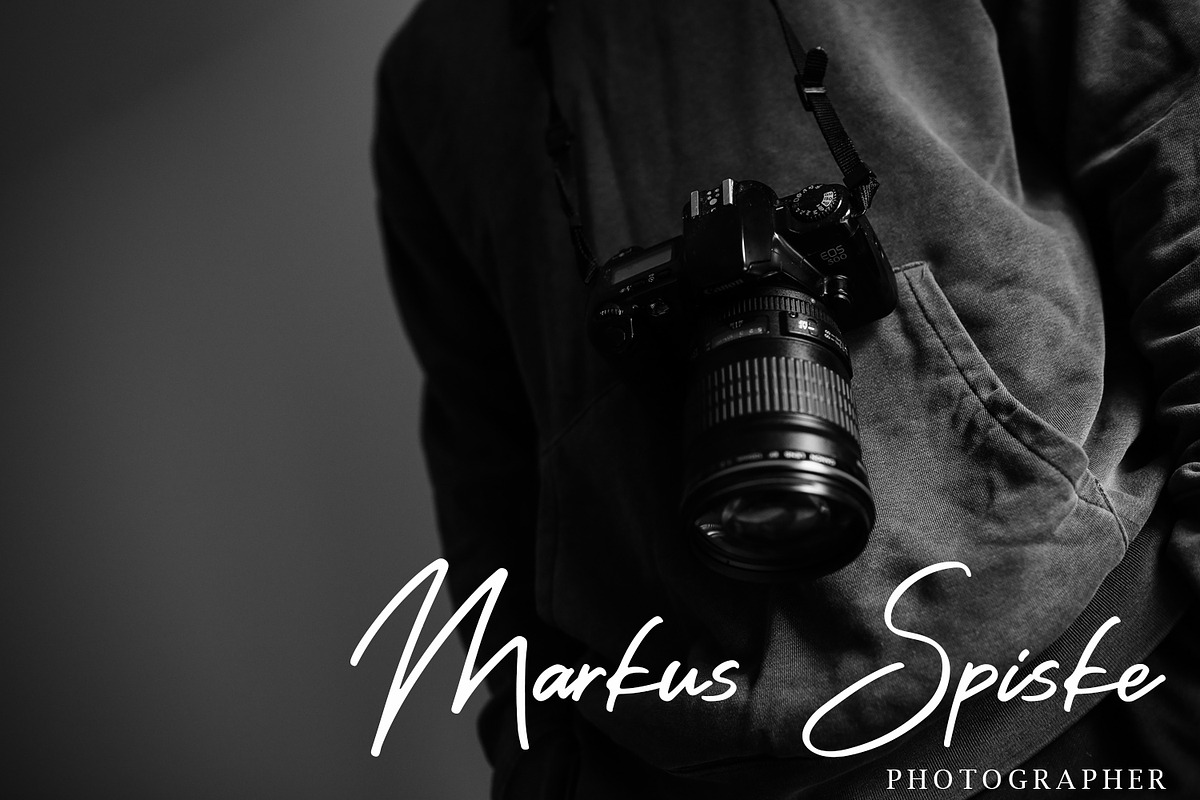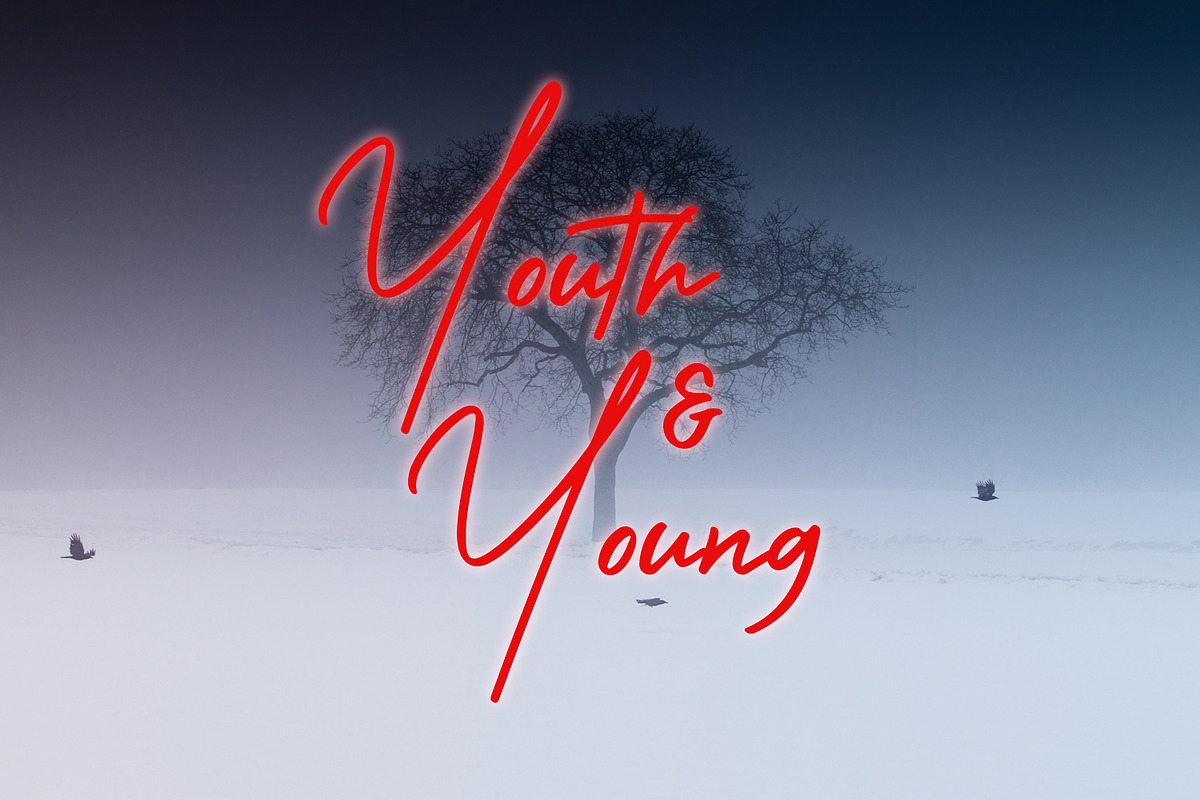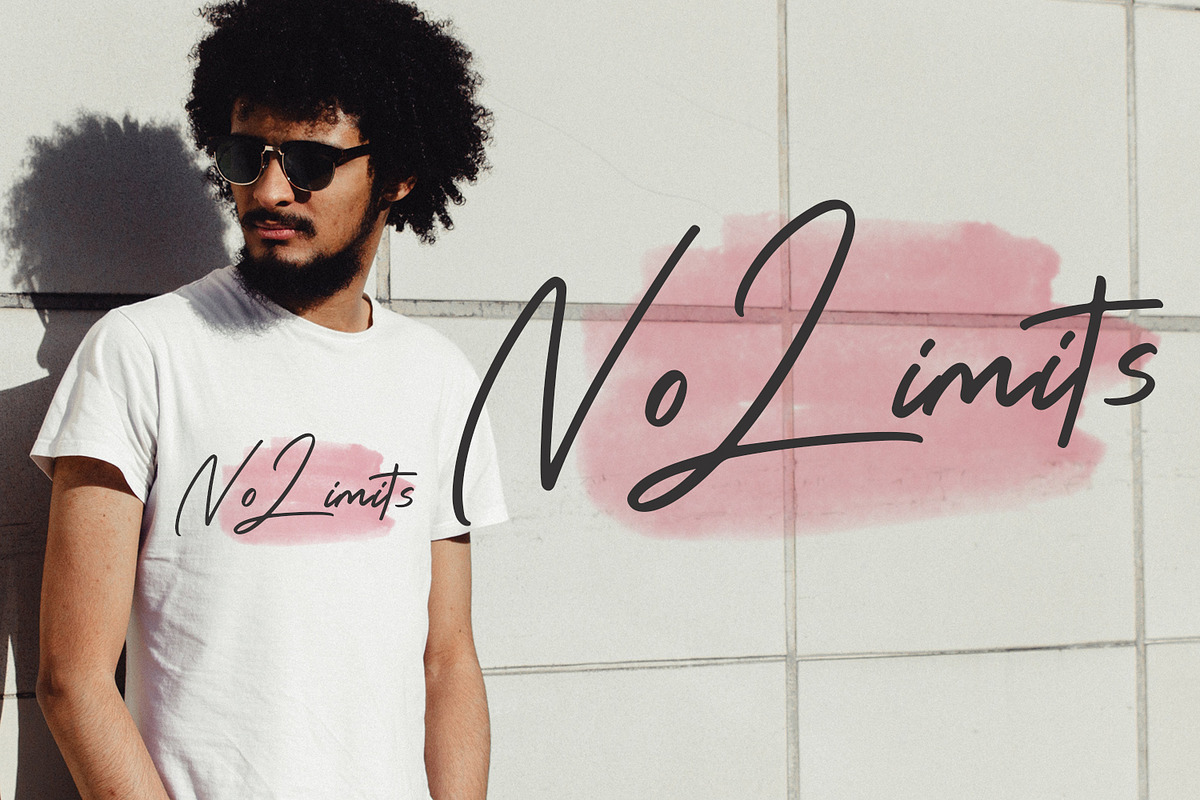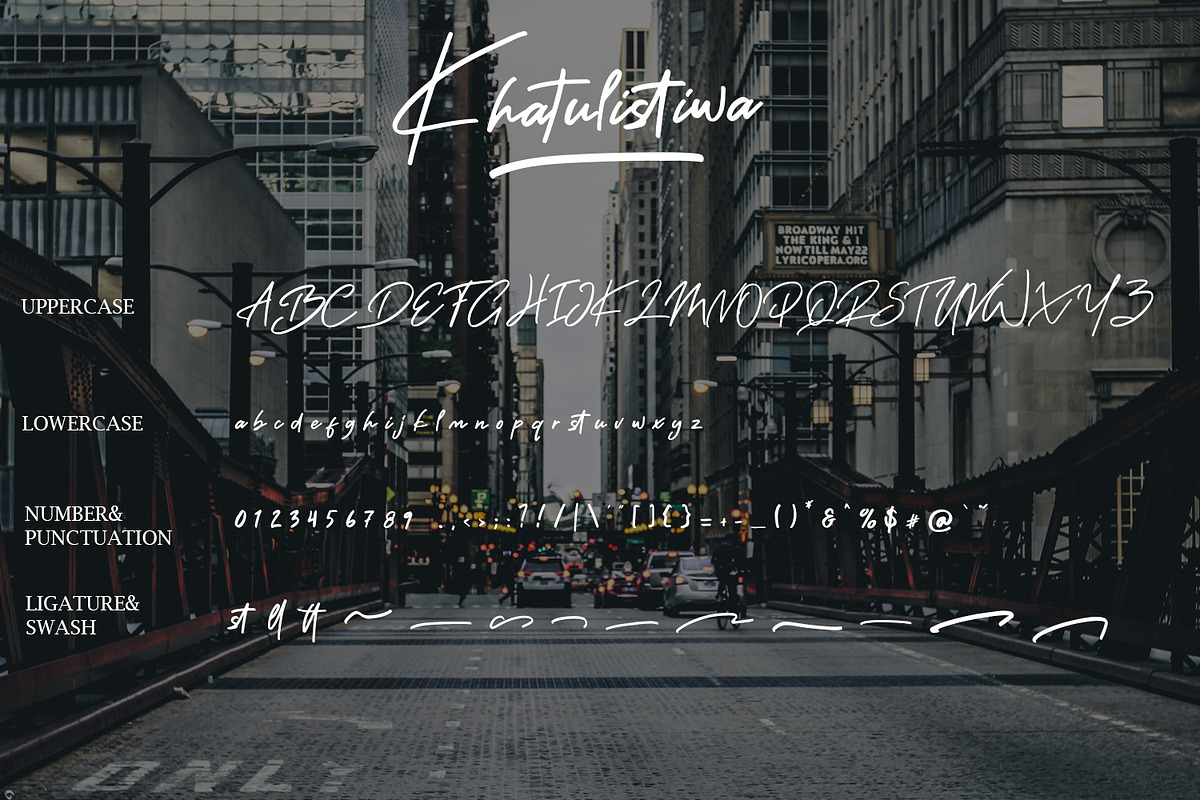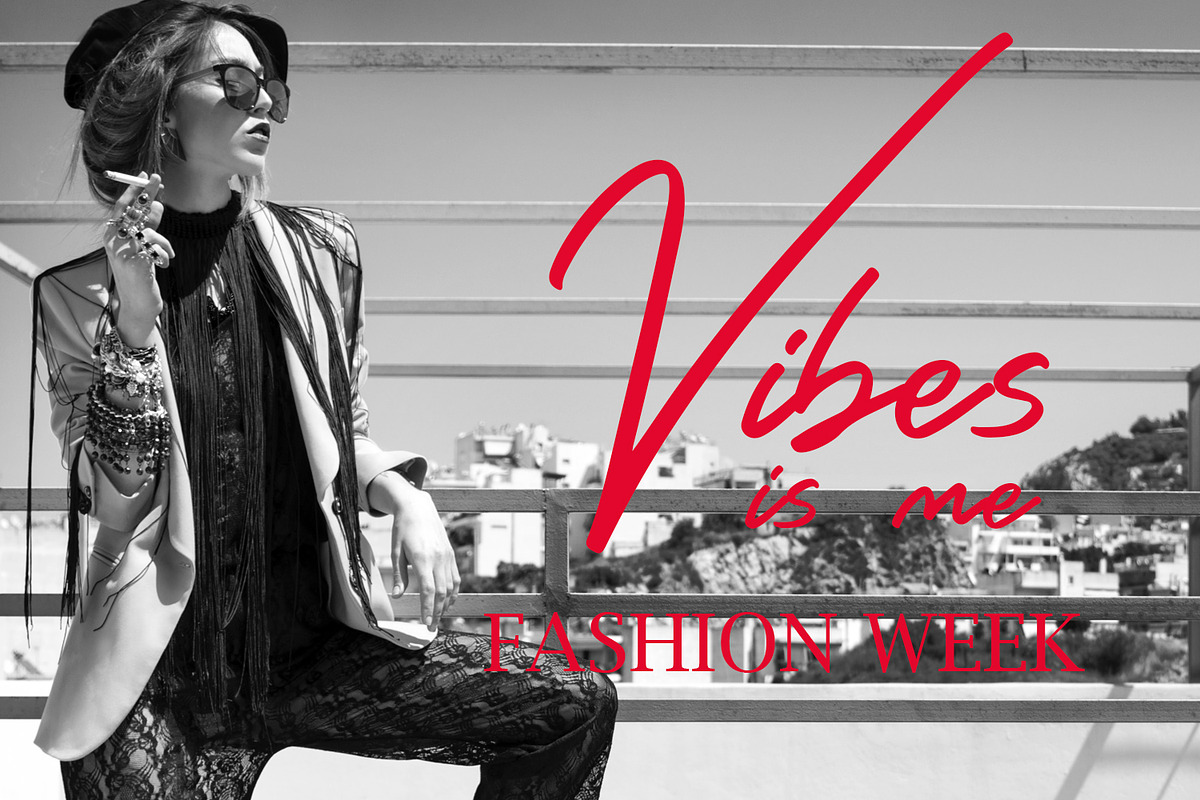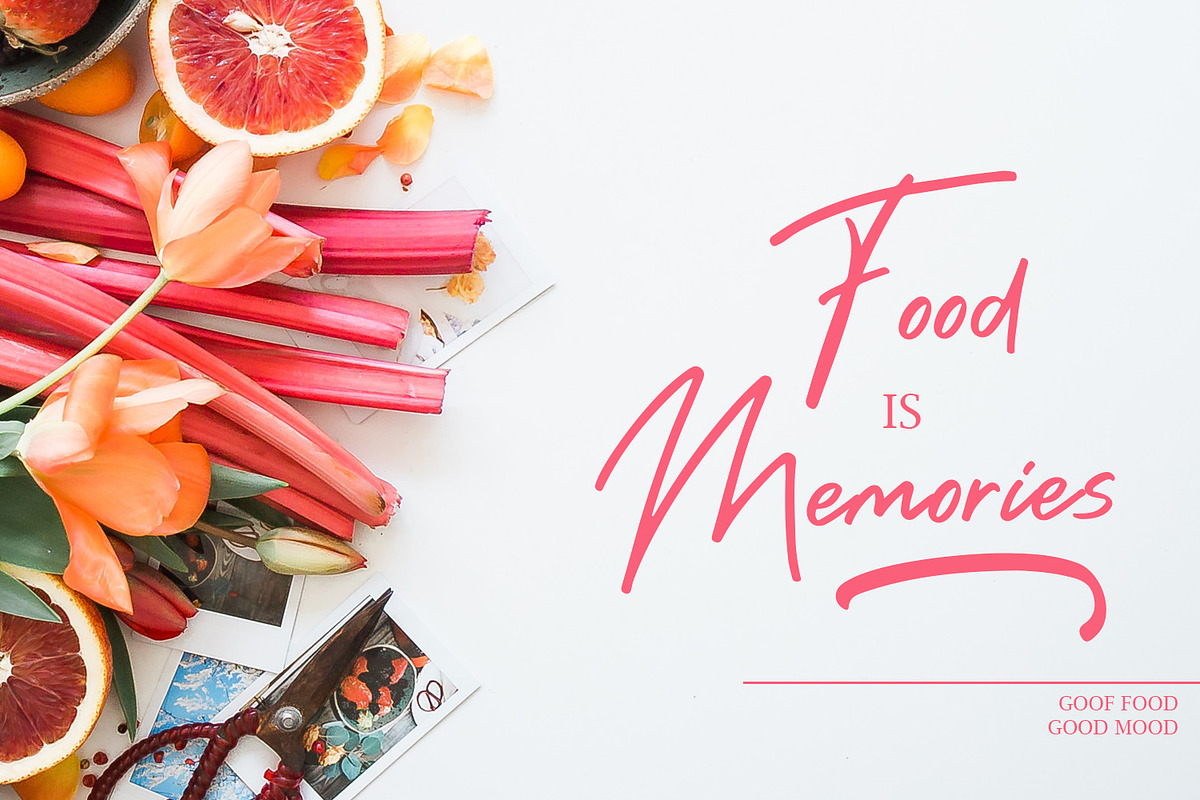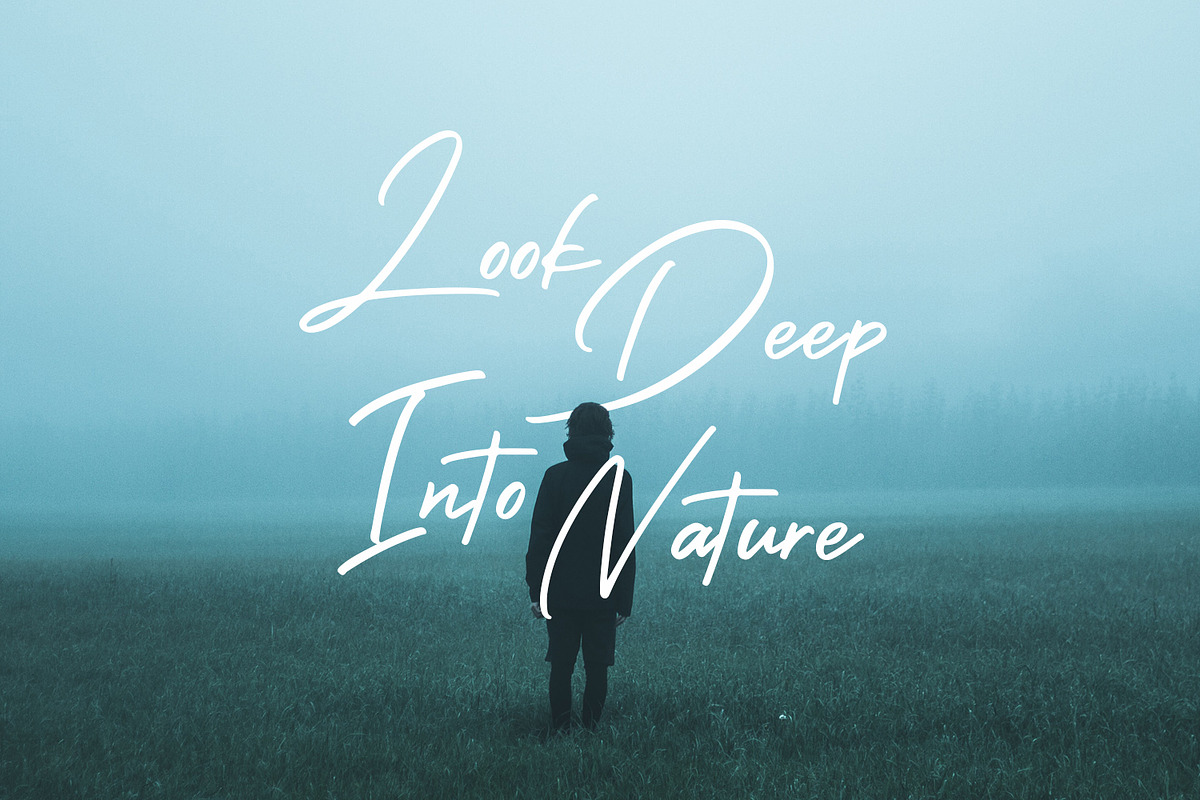
Khatulistiwa Brush Script Font
Introduce Khatulistiwa Font, handwritten fonts that are very charismatic and characterized by strong characteristics that will be very suitable for the various needs of your design projects, neatly designed I am sure you will get the font you desire .
Why Khatulistiwa Brush Script Font is worth a look
Khatulistiwa Brush Script Font by Arendxstudio fits naturally into Branding, posters, packaging, typography.